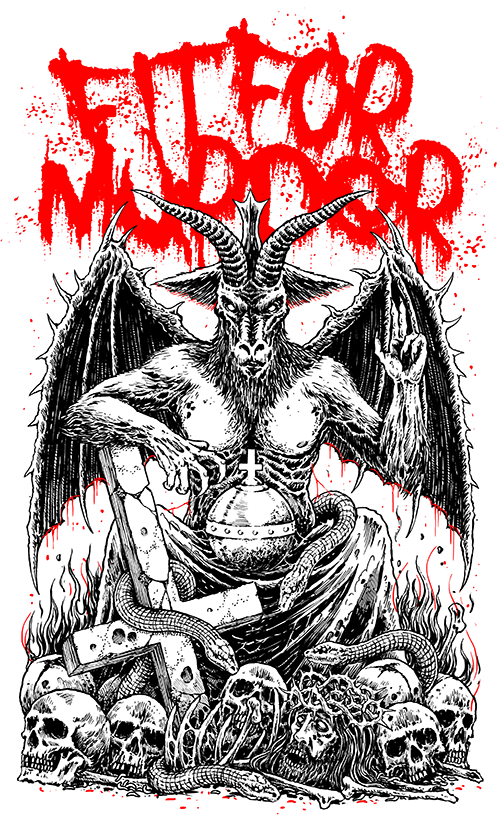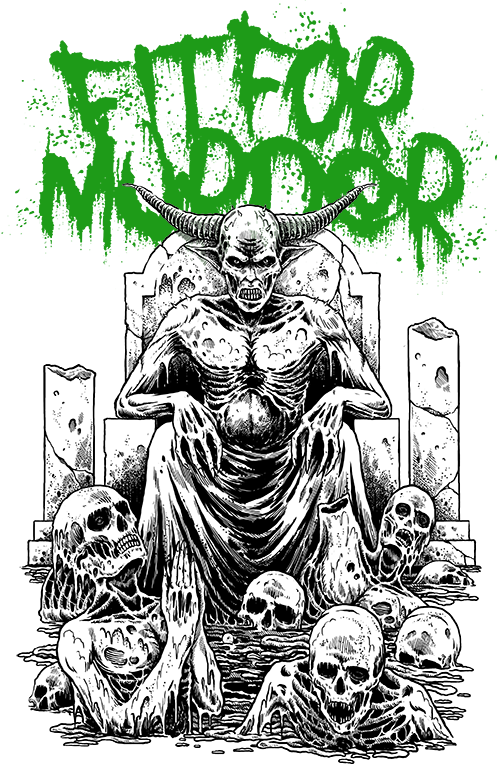
A font with a haunting essence, inspired by the macabre and spine-chilling themes of horror. Its jagged edges and eerie curves will send shivers down the spine, making it perfect for creating posters, book covers, and any other project that requires a touch of terror. With its distorted letters and ominous feel, Fit for Murder is sure to evoke fear in any audience.
Lowercase: Same as uppercase
Numbers: No
Punctuation and Symbols: , . ! only
Accents: No
Theme: Eroded, Horror, Terror, Gothic, Trash, death metal, grindcore